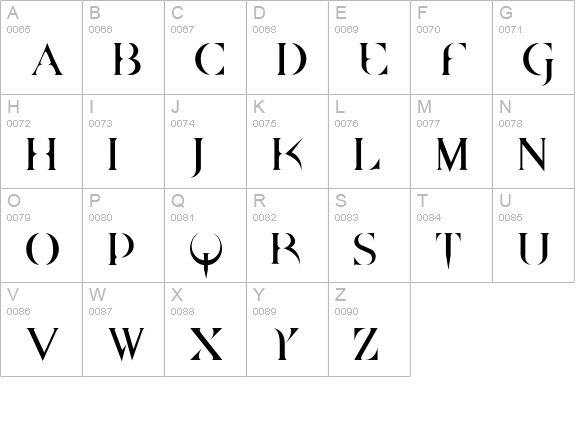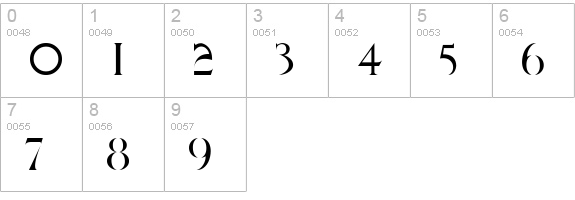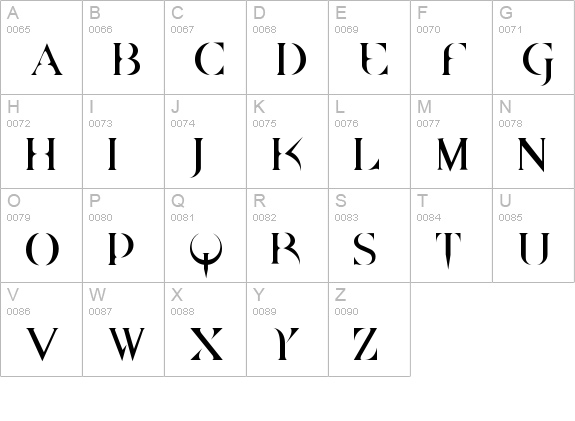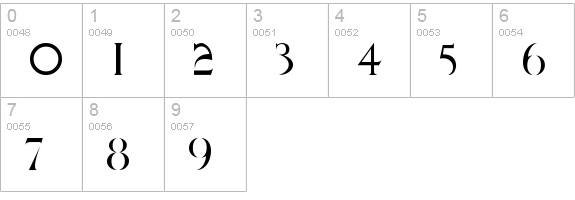
Introducing the remarkable QUAKE font, a visually stunning typeface that exudes power and energy with every letter. With its bold and dynamic design, this font is perfect for capturing attention and making a bold statement in any creative project. QUAKE font is the epitome of strength and intensity, as each character is meticulously crafted to convey a sense of motion and impact. The sharp angles and strong lines create a sense of movement, resembling cracks and fissures in the earth's surface after a powerful earthquake. Its unique design sets it apart from other fonts, making it a standout choice for those seeking to make a lasting impression. But what makes QUAKE font even more impressive is that it is available for free. That's right, this incredible font can be yours without spending a dime. It is freely available to download at FontsMarket.com, the premier destination for typography enthusiasts. Whether you're a graphic designer looking to add some edge to your designs, a content creator wanting to make a statement, or a brand in search of a font that embodies strength and power, QUAKE font is the perfect choice. Download it today and unleash the seismic force of creativity in your projects. Don't miss out on this incredible opportunity to own a font that is not only visually striking but also free to download. Get QUAKE font now at FontsMarket.com and let your designs shake the world!